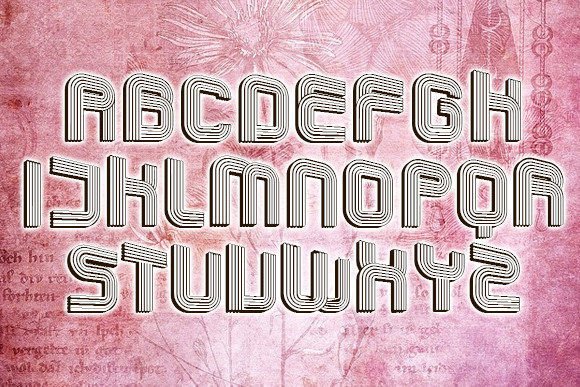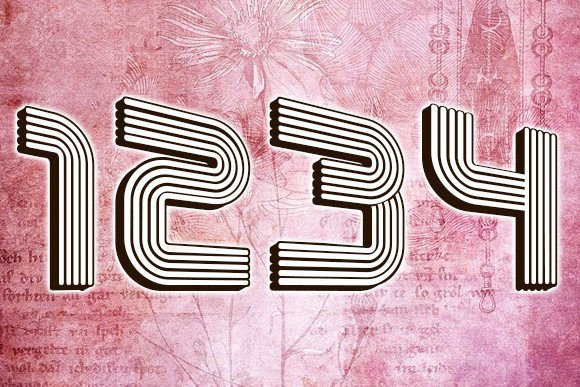
Introduction to Linesa Font
That’s where the Linesa Font comes in – a superb deco-typeface that will truly inspire your work. With its unique blend of elegance and sophistication, this font is perfect for creating stunning posters, banners, and headlines. Whether you’re working on a personal project or a commercial campaign, the Linesa Font is a valuable asset to have in your design toolkit.
Key Features of Linesa Font
- High-quality design resource ideal for creative projects, offering a clean and modern aesthetic.
- Designed with precision and attention to detail, making it a versatile choice for various design applications.
Honest Review: Linesa Font
- ✨ The Linesa Font offers a modern and clean aesthetic that’s perfect for a variety of design projects.
- ✨ The font comes in a range of weights and styles, giving designers plenty of flexibility.
- ⚠️ The Linesa Font may not be suitable for projects that require a more complex or bold typography.
- ⚠️ Some users may find the font a bit too minimalist, which can be a drawback for those who prefer a more dramatic look.
Overall, I was impressed with the Linesa Font’s quality and versatility. While it may not be perfect for every design project, it’s definitely a solid addition to any designer’s toolkit.
Linesa Font is perfect for creating text overlays on images, adding headings and titles to presentations, and designing documents with a modern and sleek look. Its transparent background makes it easy to use in combination with images and other design elements.